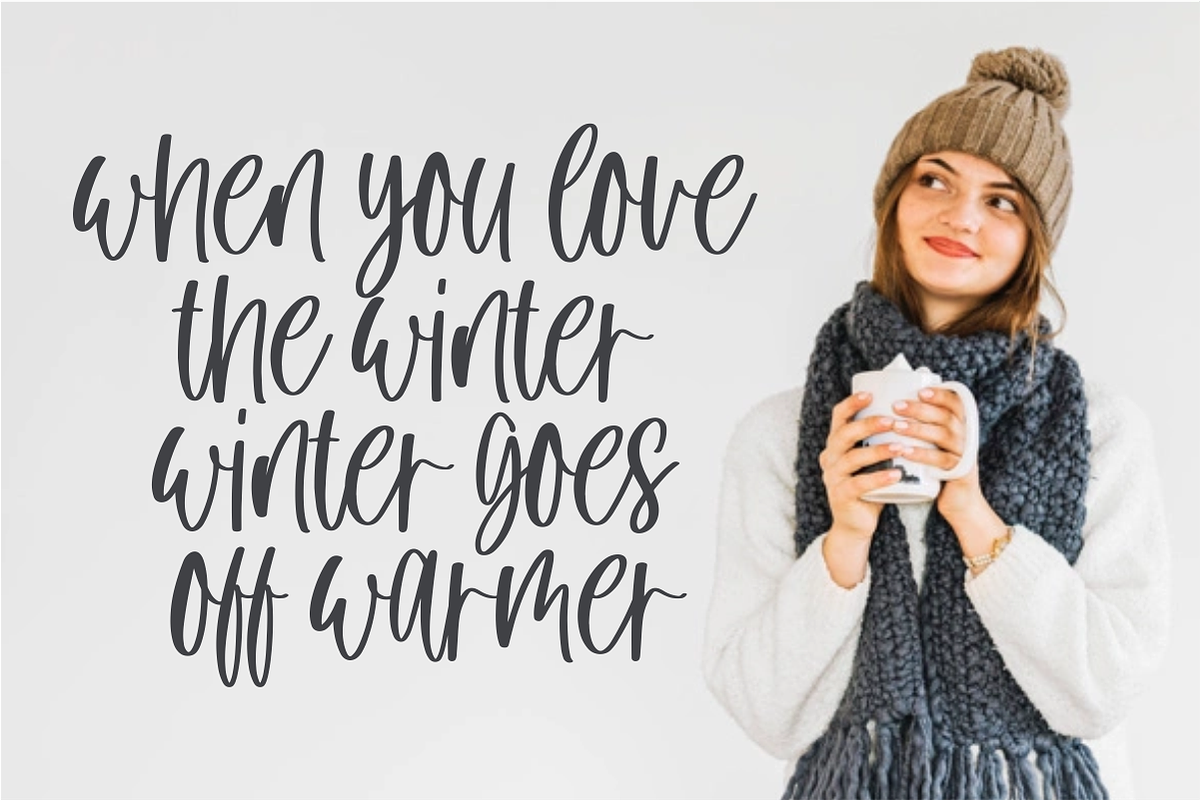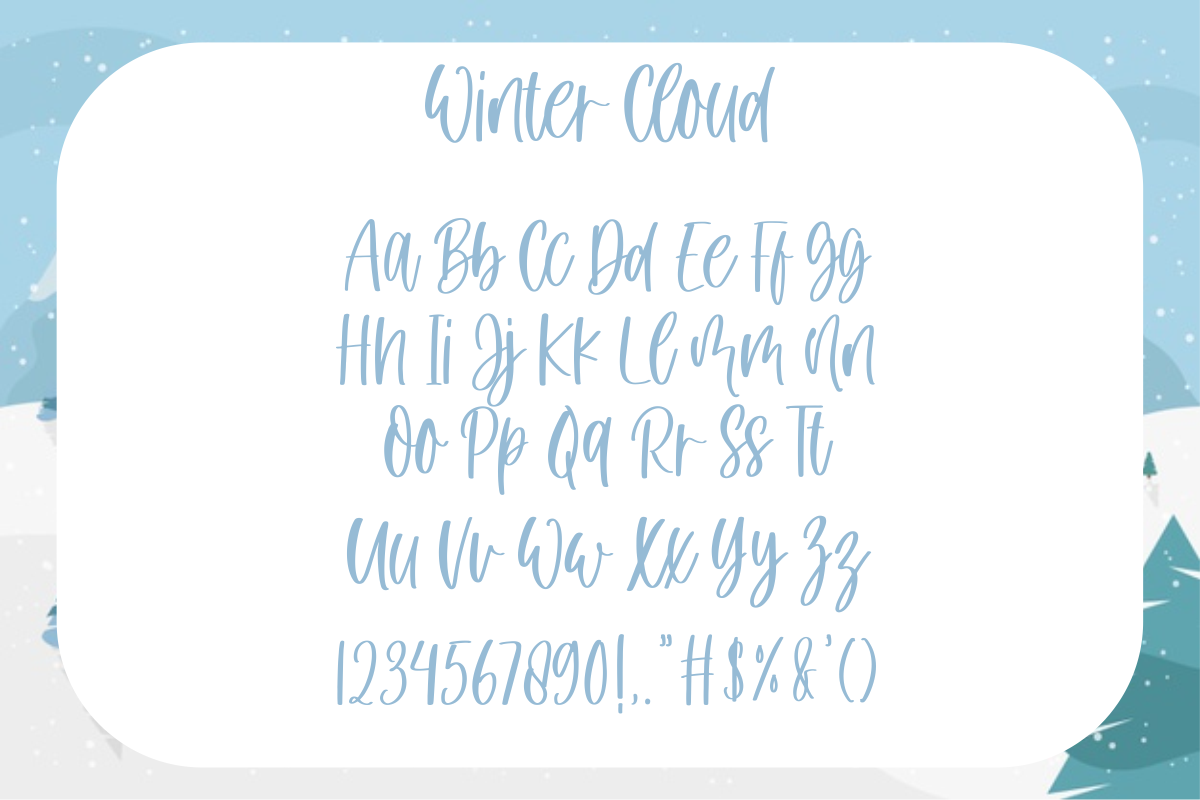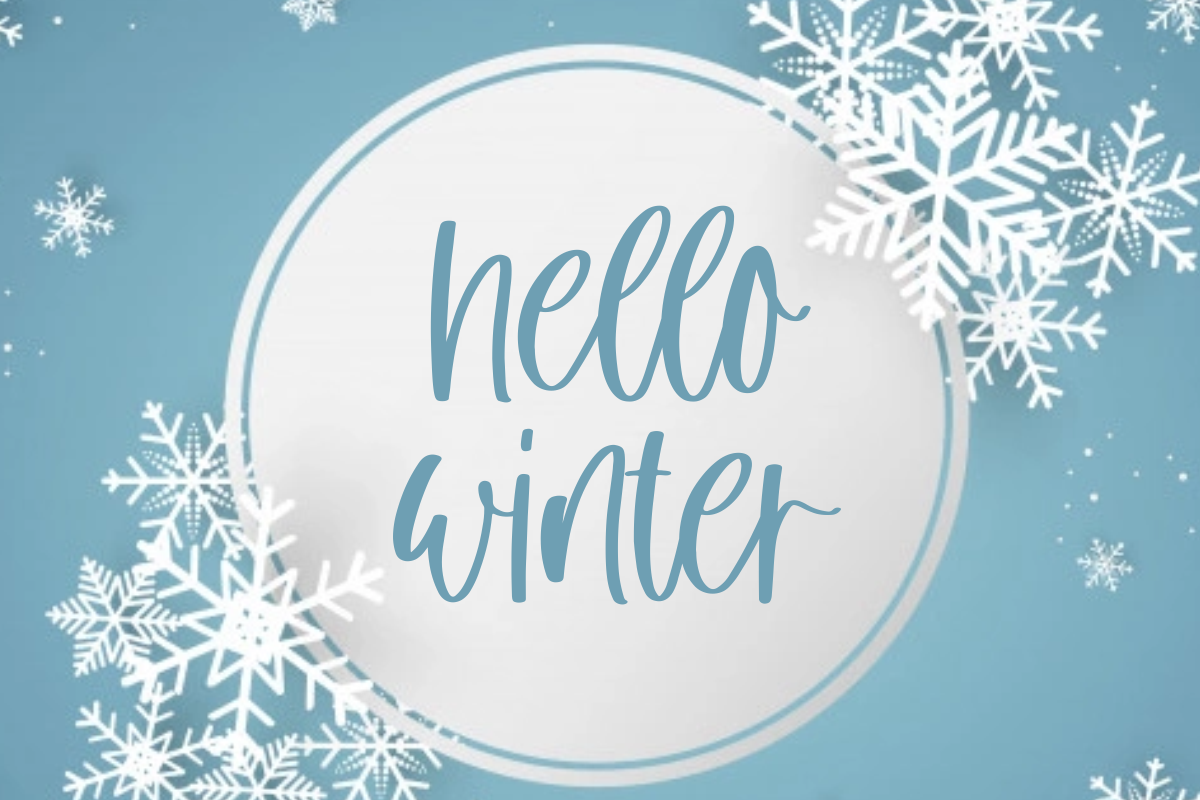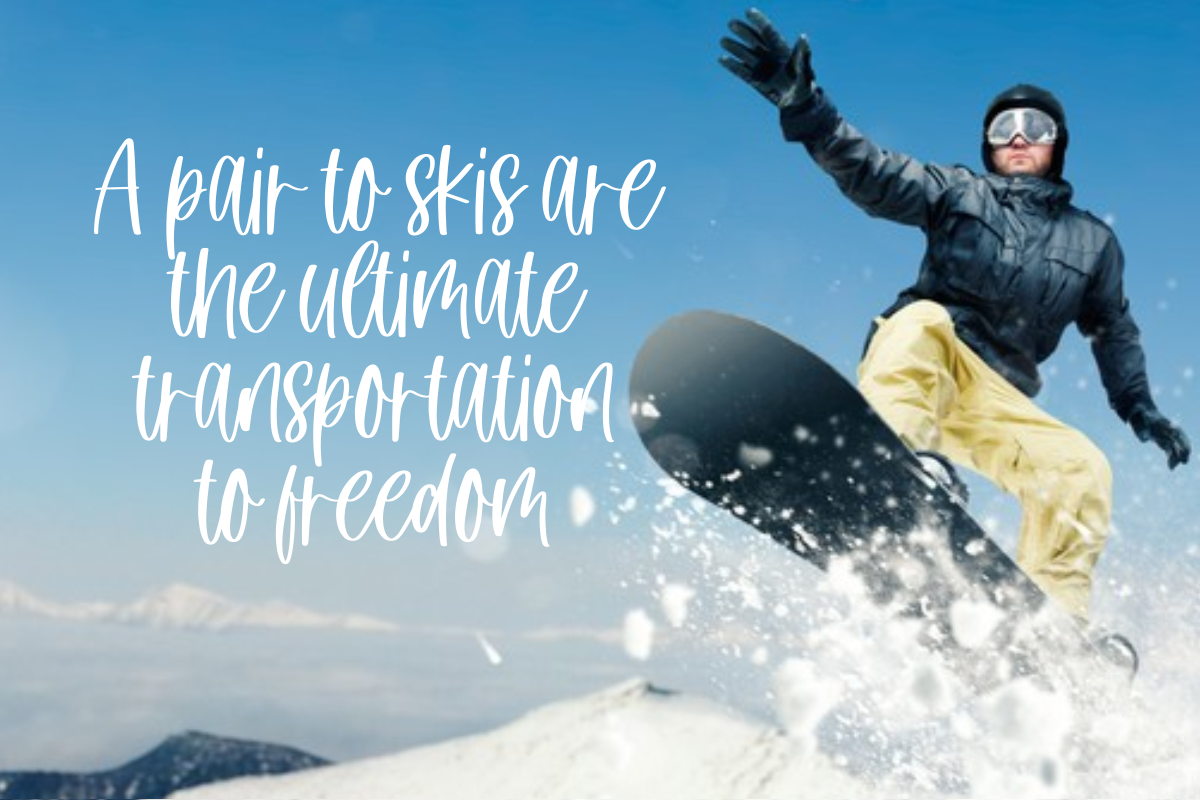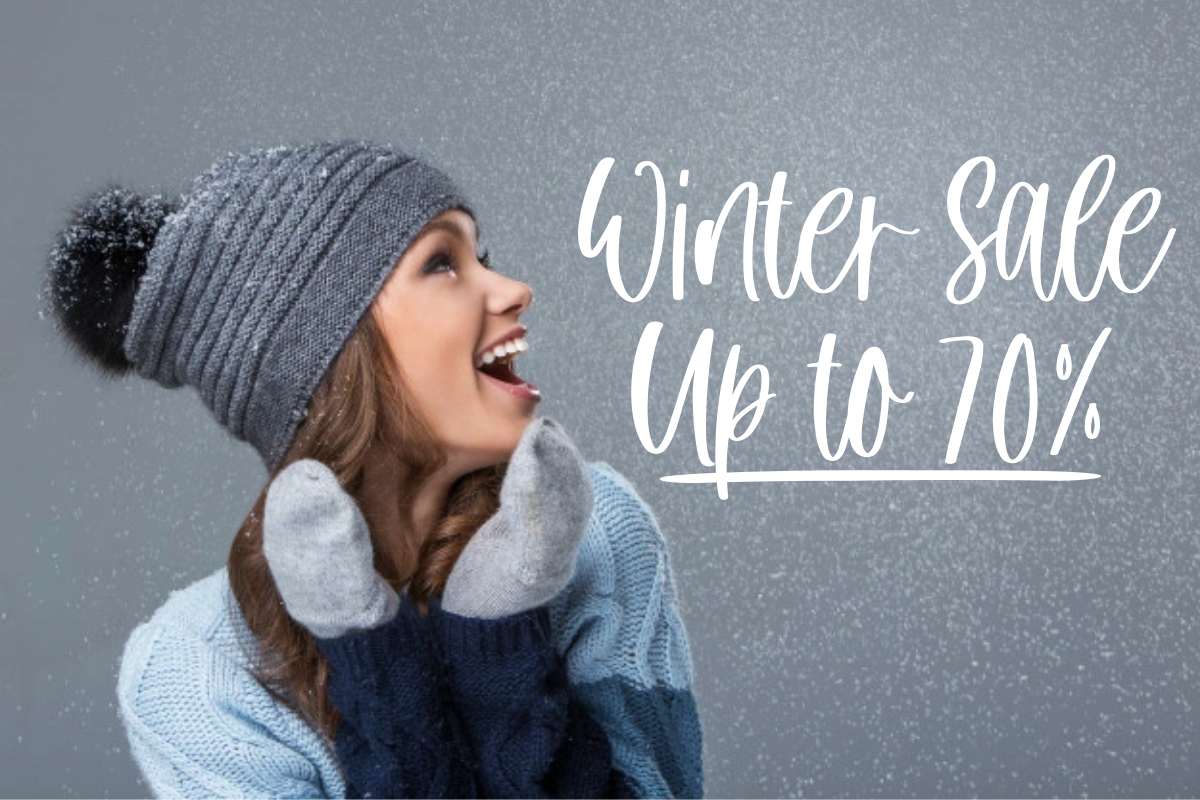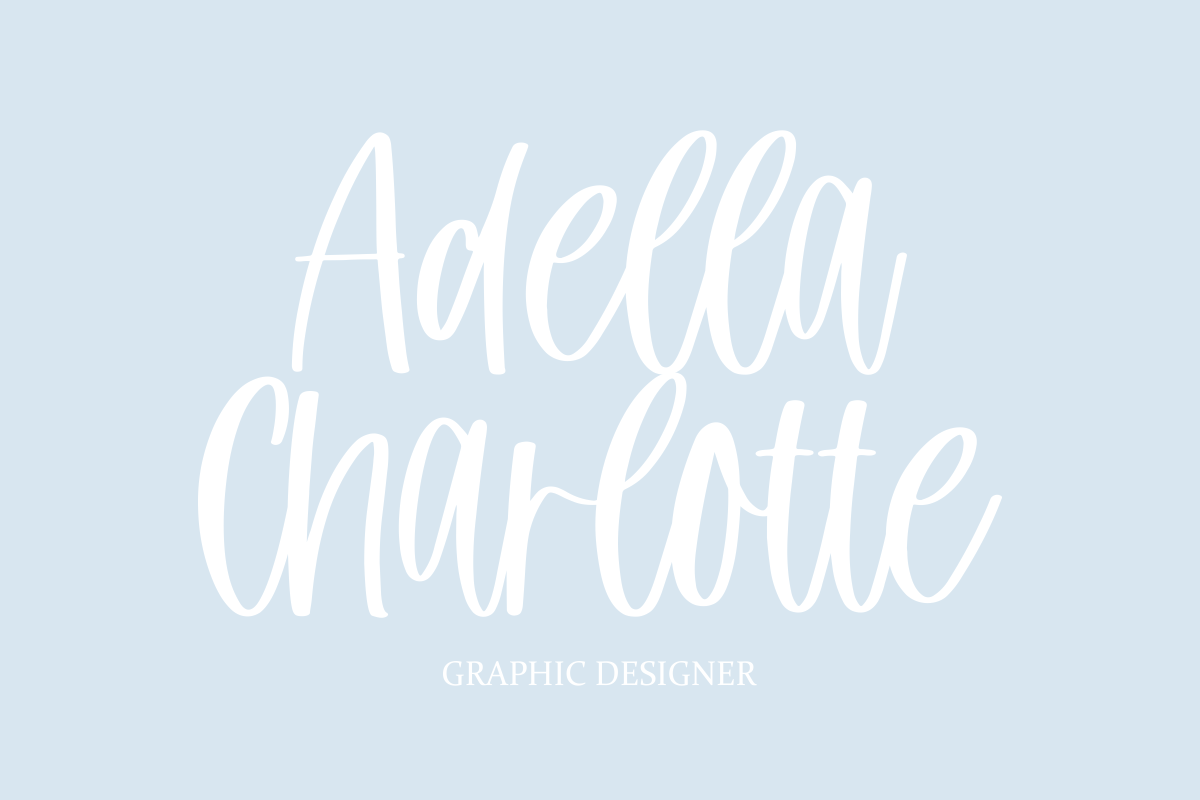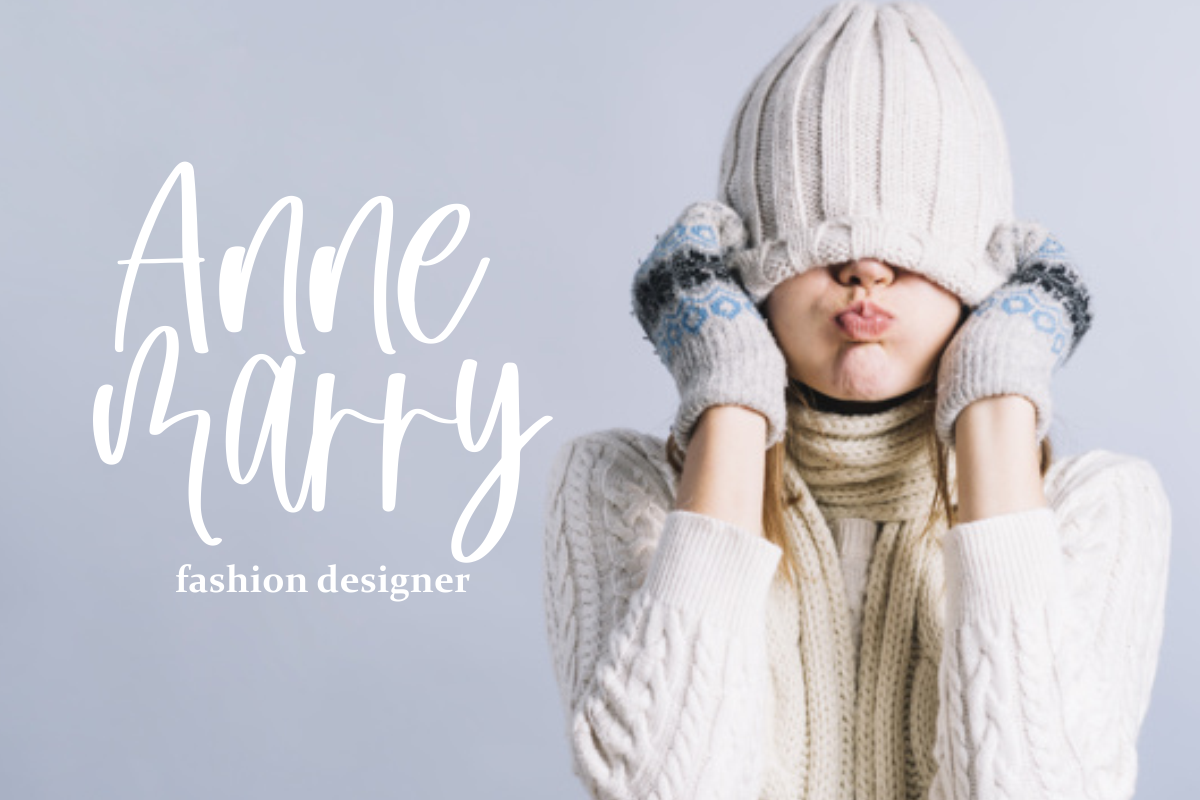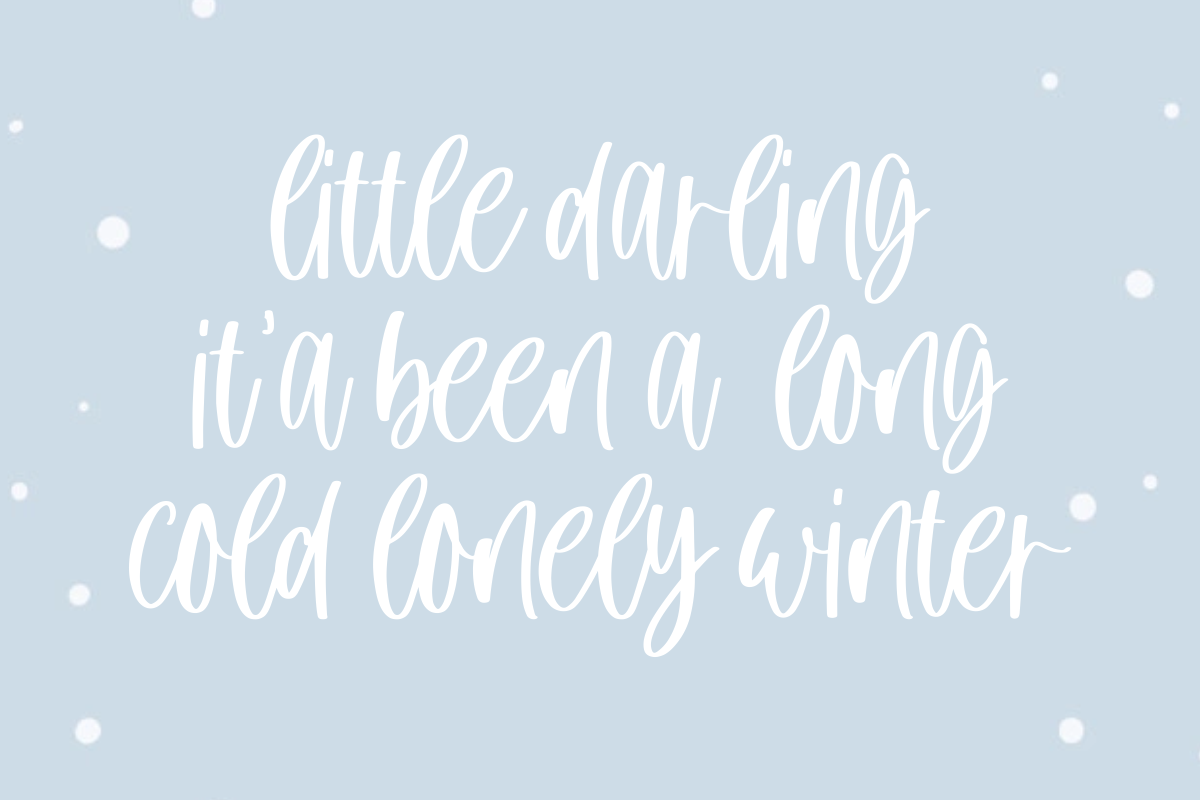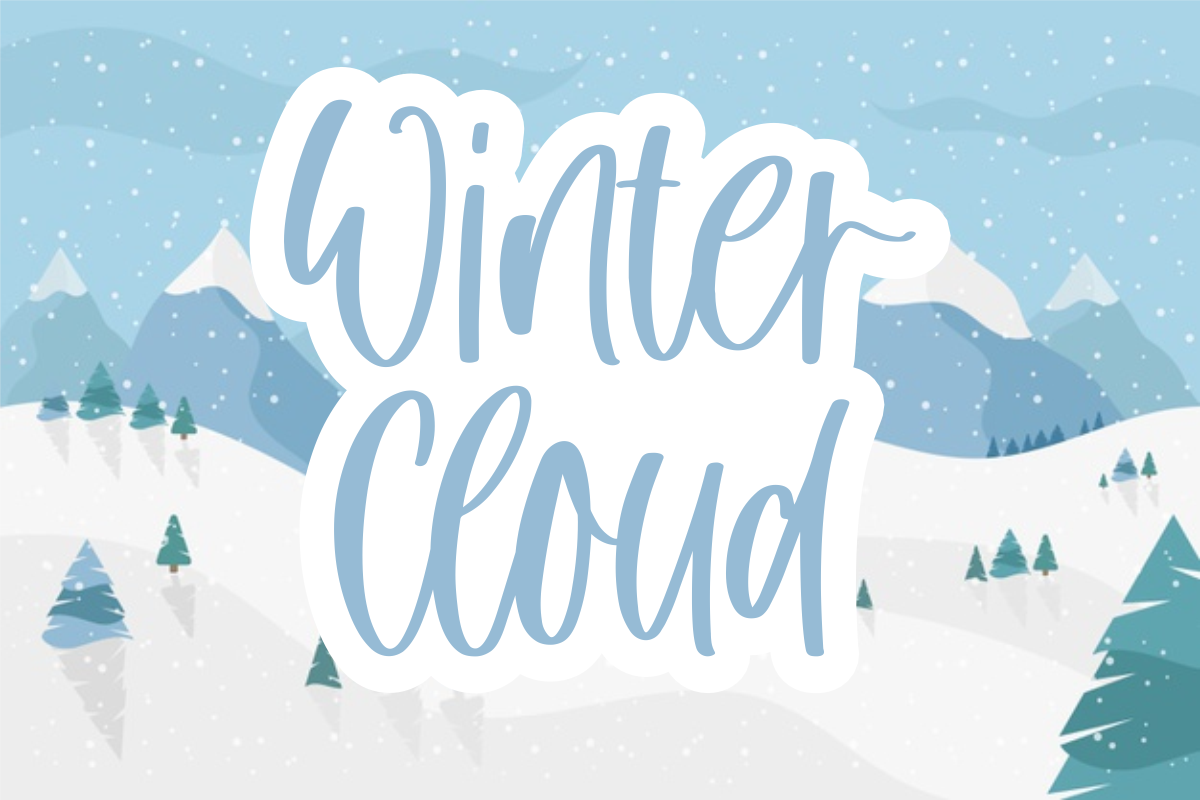
Winter Cloud - Handwritten Font
Winter Cloud – is a modern handwritten. This font is made in a modern style with elegantly, very casual, and suitable for your various design needs I’ts perfect for logo, branding, title, social media posts, advertisements, product packaging, product designs, label, photography, watermark, special event, magazine, web design, etc.
Winter Cloud ( Uppercase, Lowercase ), multilingual support, If you have any questions please don’t hesitate to contact me